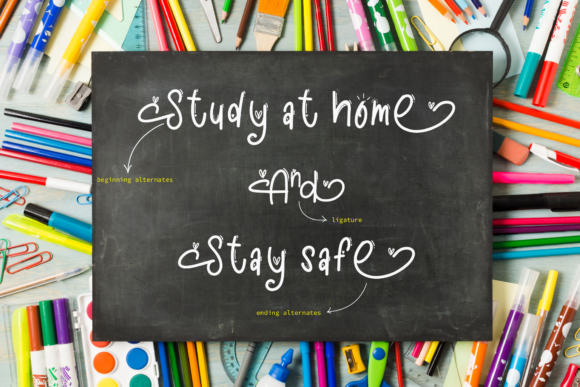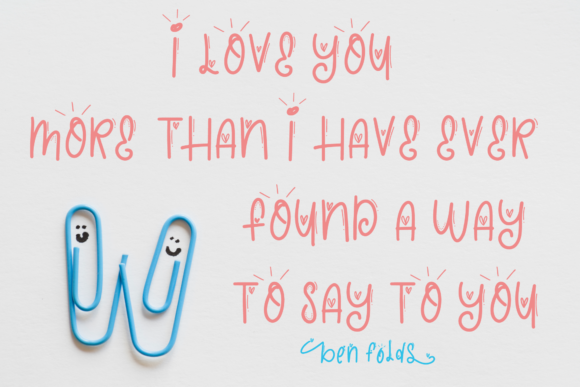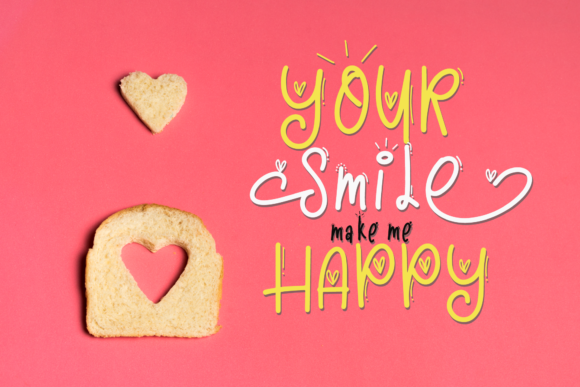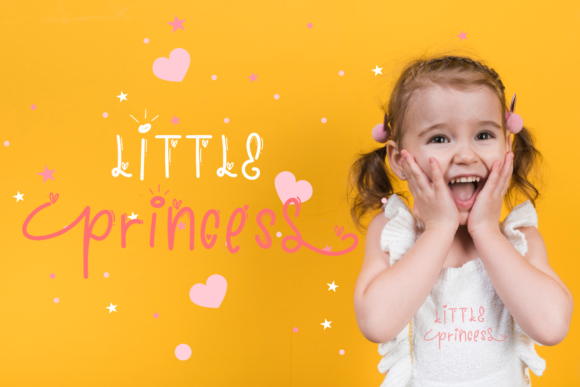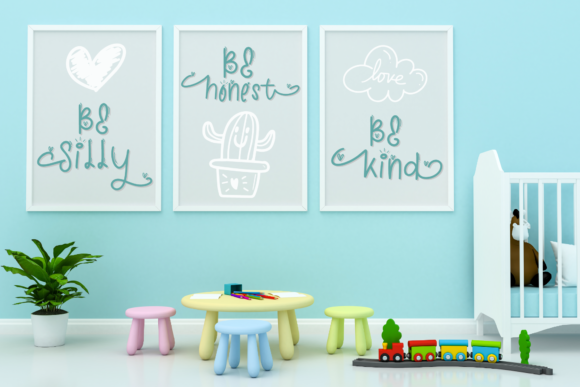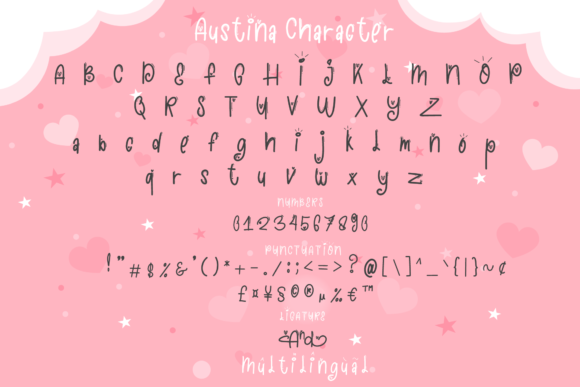
Discover the Joy of Handwritten Design with Austina Font
Have you ever sat down with a blank piece of paper and a pen, feeling the thrill of bringing a creative idea to life? The scratch of the pen on paper, the flow of your thoughts onto the page, and the satisfaction of watching your vision take shape – it’s a moment that never gets old. Whether you’re a seasoned designer or a DIY enthusiast, there’s something special about creating something with your own hands.
Austina Font is a charming display font that captures the essence of handwritten design. With its cute and joyful style, it’s perfect for adding a personal touch to your creative projects. Whether you’re looking for fonts for Instagram or calligraphy scripts for DIY projects, Austina Font will help turn your ideas into stunning works of art. As a valuable addition to any designer’s toolkit, Austina Font offers endless possibilities for creative expression.
Austina Font Key Features
- Unique Characteristics: The font features a unique blend of modern and classic elements, with a mix of geometric and organic shapes.
Austina Font Review
Overall, I’m impressed with Austina Font. It’s a modern, elegant script font that’s perfect for adding a touch of sophistication to your designs. ✨
- Unique, handwritten feel that sets it apart from more generic script fonts ✨
- Wide range of ligatures and swashes for added flair ✨
- High-quality, professional-looking font that’s great for both digital and print use ✨
- Some characters may not be as clear or legible at small font sizes ⚠️
- Lack of a bold or condensed version may limit its use in certain contexts ⚠️
- Not ideal for large blocks of text, as it can be tiring to read in quantity ⚠️
Despite its limitations, I think Austina Font is a great choice for designers looking to add a touch of elegance and sophistication to their projects. With its unique, handwritten feel and high-quality design, it’s a great addition to any font collection.
Tip: Use Austina Font for titles and headings to add a touch of elegance to your designs.
Tip: Use Austina Font for creative typography projects, such as logo design or infographics.
Tip: Use Austina Font for presentations or documents that require a professional and elegant look.
Austina Font is ideal for:
- Logo design and branding
- Infographics and data visualization
- Editorial and creative writing
Alternatives to Austina Font for Designers
Lato Font is a modern sans-serif font that is highly legible and versatile. It is ideal for use in headings, titles, and body text where a clean and minimalistic look is desired. Lato Font has a slightly condensed feel compared to Austina Font, making it suitable for use in narrower columns or on smaller screens.
Montserrat Font is a geometric sans-serif font that is inspired by urban typography. It is perfect for use in headings, titles, and body text where a strong and modern feel is desired. Montserrat Font has a slightly more condensed feel than Austina Font and is ideal for use in digital media, such as websites and mobile apps.
Merriweather Font is a classic serif font that is highly legible and elegant. It is ideal for use in body text, captions, and footnotes where a traditional and sophisticated look is desired. Merriweather Font has a more formal feel than Austina Font and is suitable for use in print materials, such as books and magazines.
Open Sans Font is a modern sans-serif font that is highly legible and versatile. It is ideal for use in headings, titles, and body text where a clean and minimalistic look is desired. Open Sans Font has a similar feel to Austina Font but with a more open and airy feel, making it suitable for use in digital media, such as websites and mobile apps.